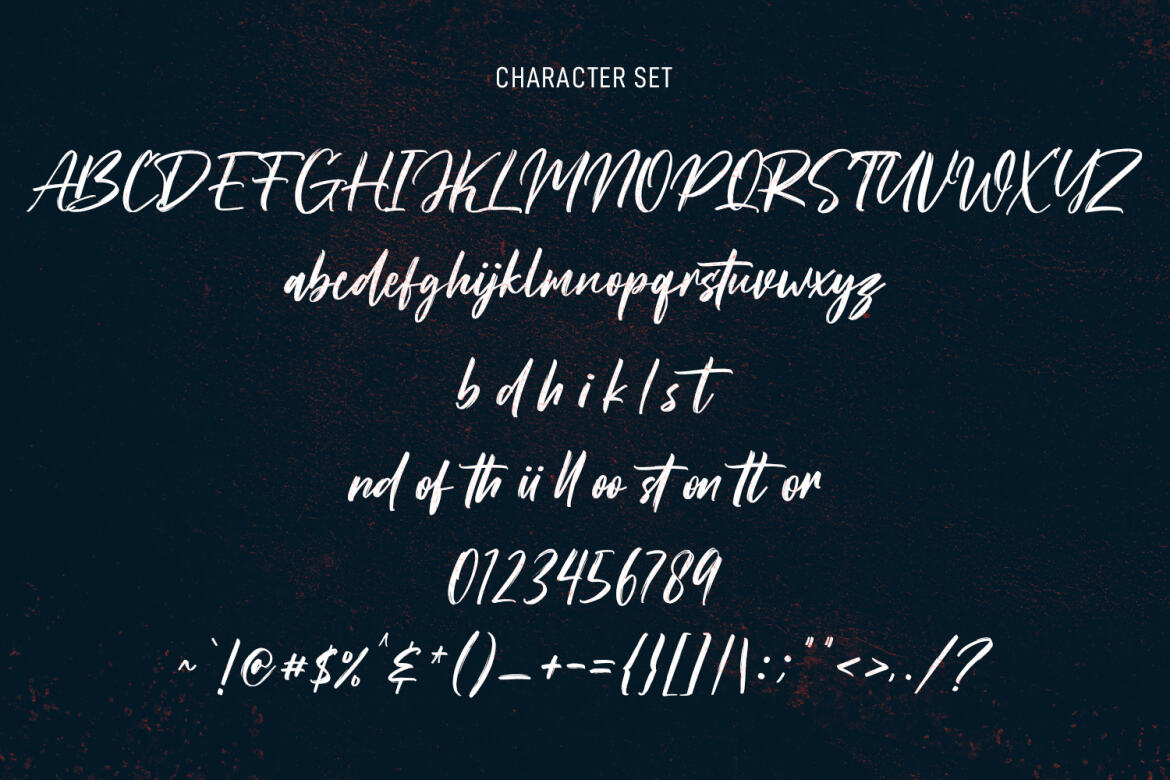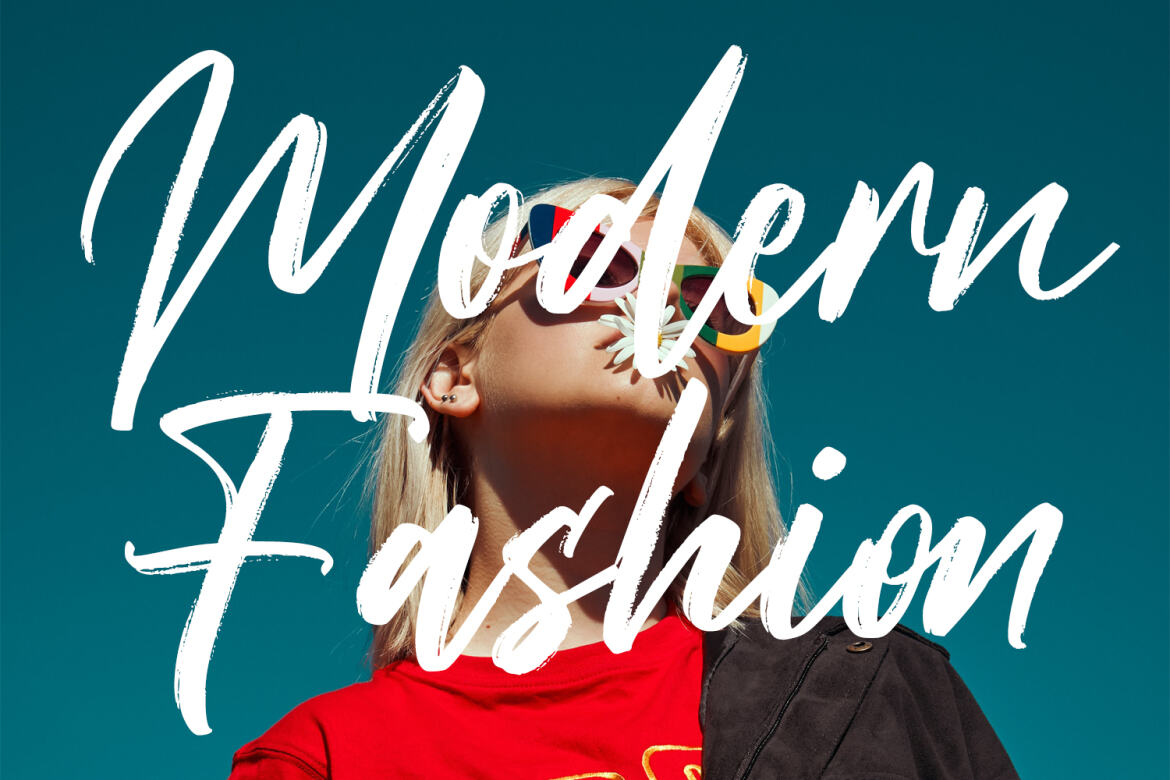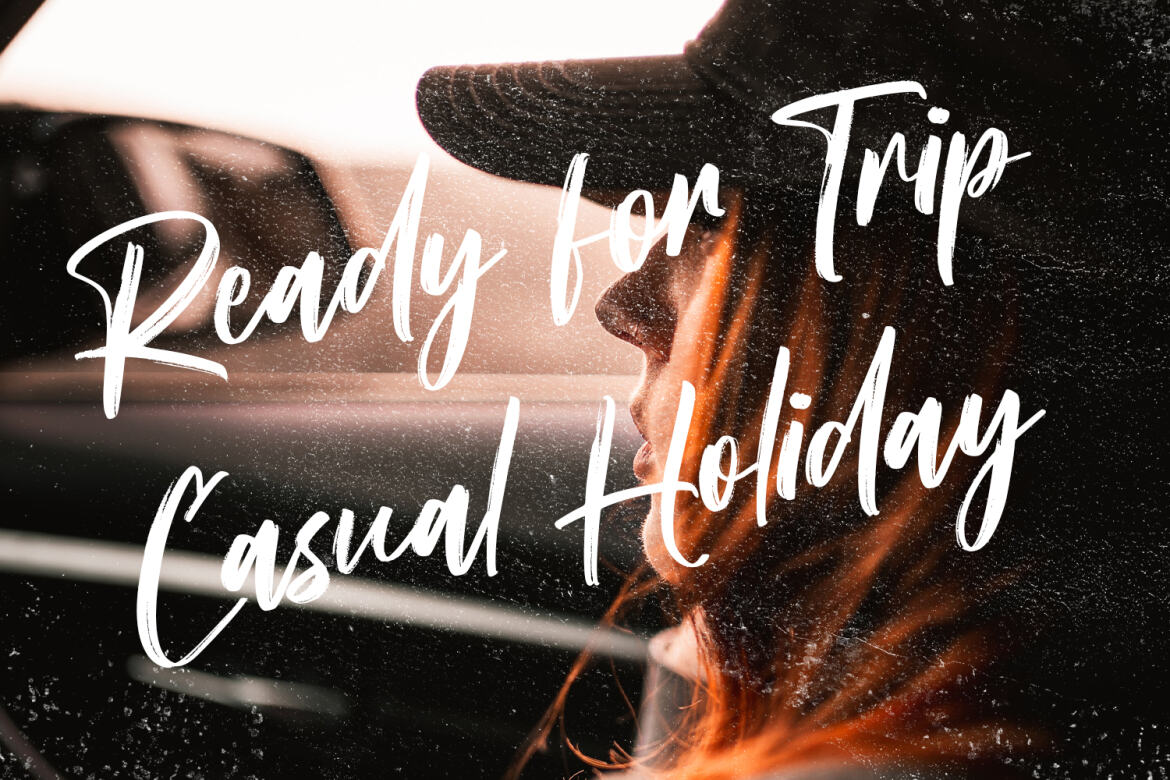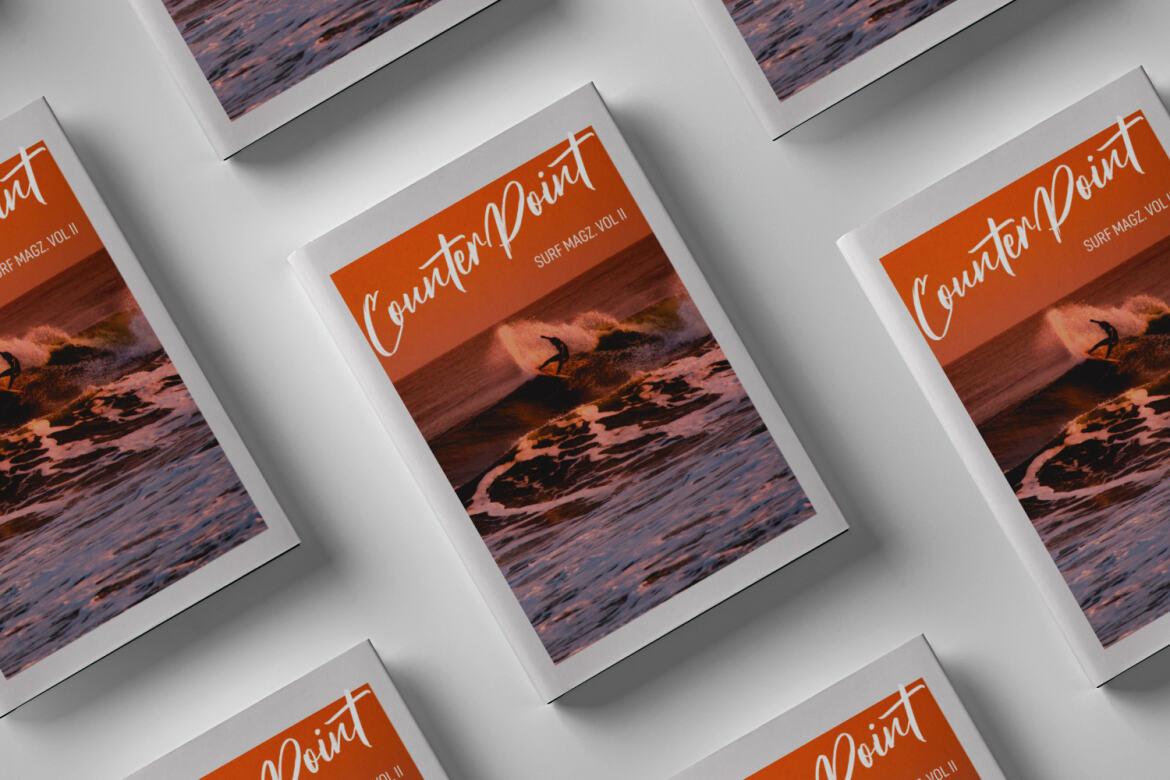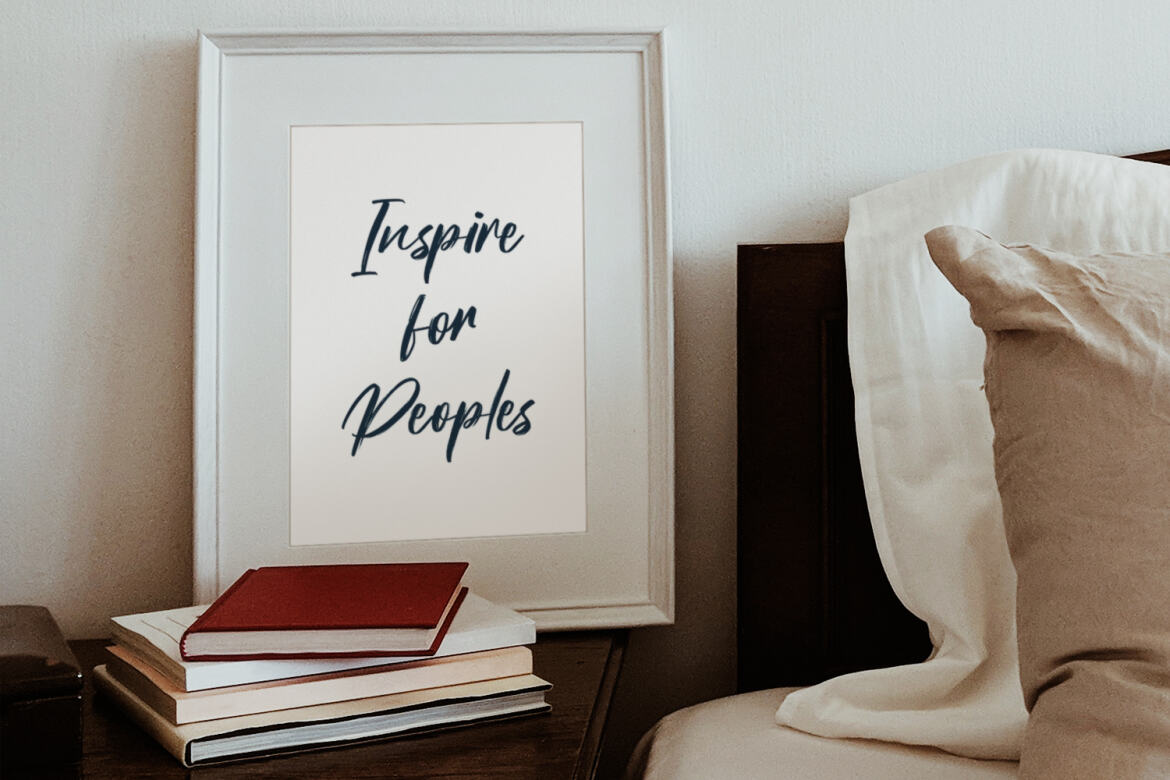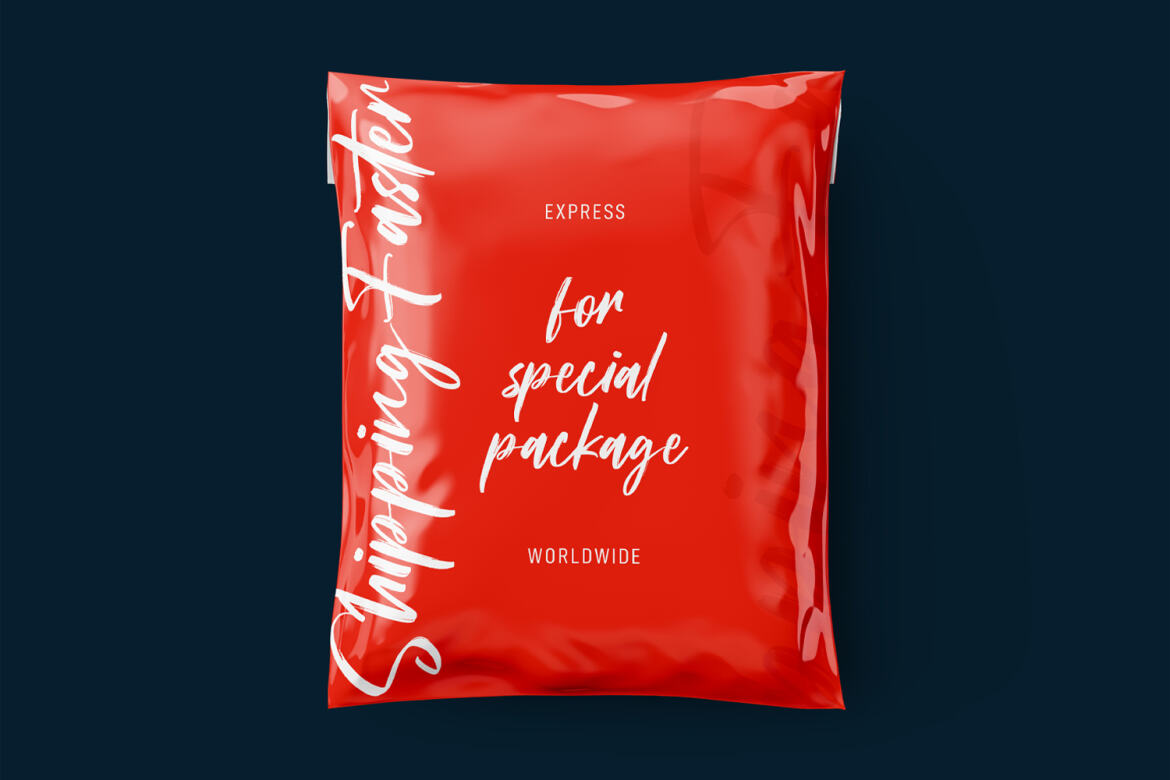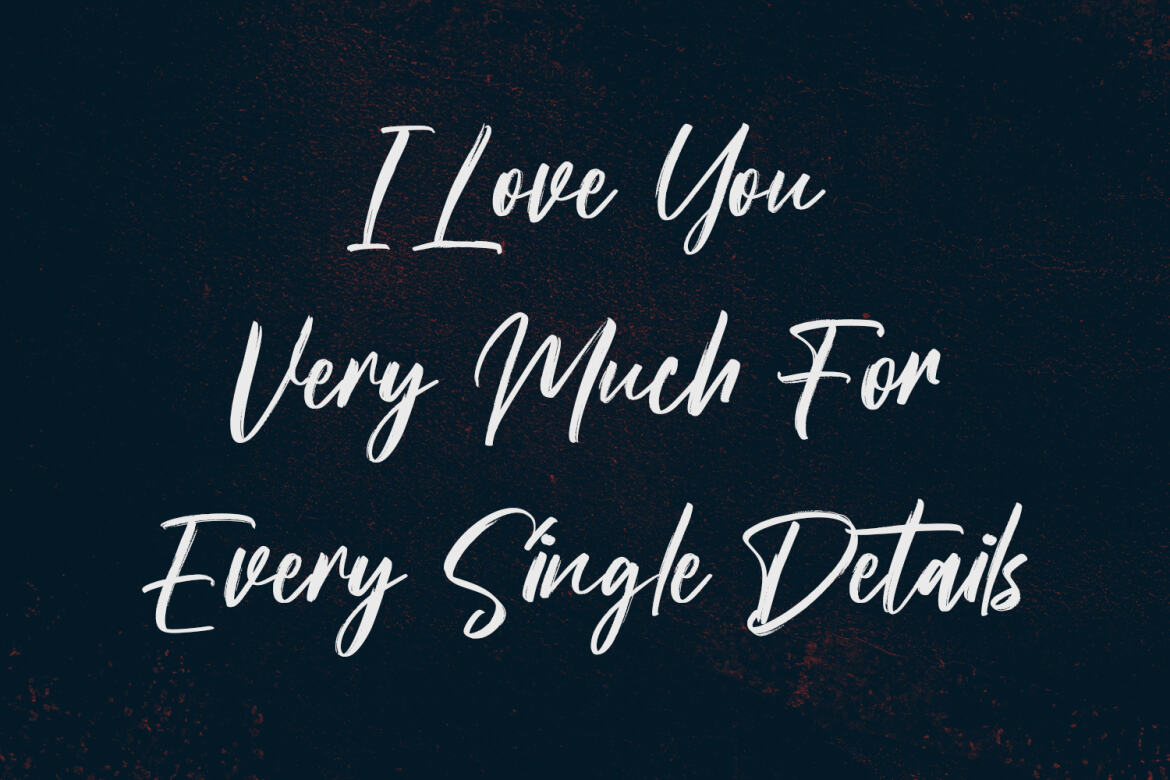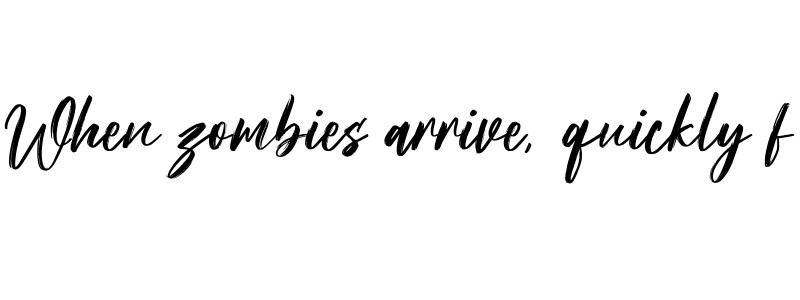
Roxfranks Brush Script FREE Font
Roxfranks
Roxfranks is a Fancy Brush Script font. With rough brush stroke, slant and fun character with a bit of ligatures and bit of alt lowercase. To give you an extra creative work. Roxfranks font support multilingual more than 100+ language. This font is good for logo design, Social media, Movie Titles, Books Titles, a short text even a long text letter and good for your secondary text font with sans or serif. Make a stunning work with Roxfranks font.